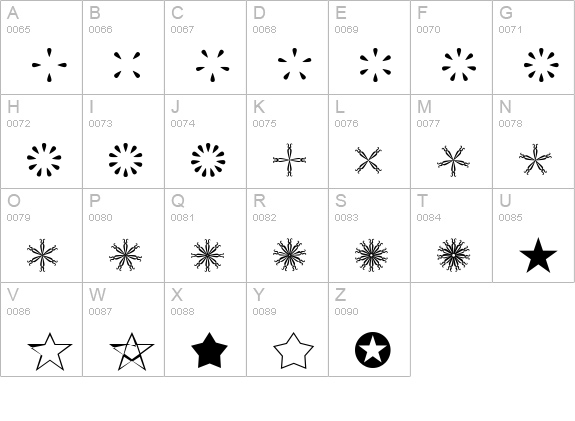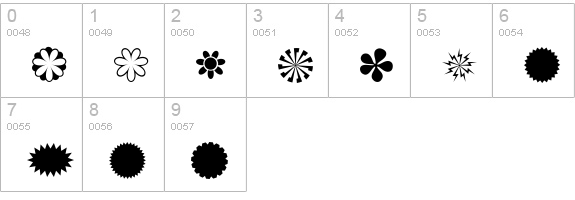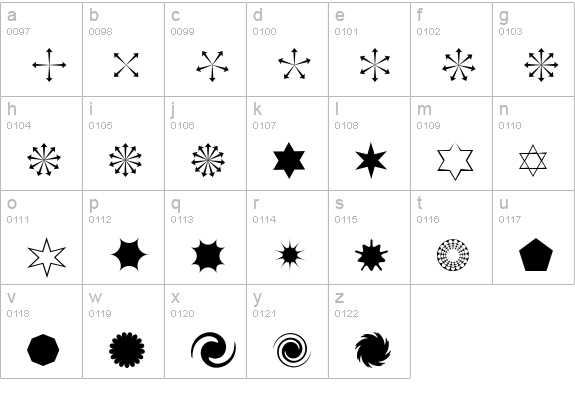
Asterisp Gamma font is a modern and stylish typeface that exudes elegance and sophistication. With its sleek lines and contemporary design, this font is perfect for adding a touch of class to any project. The smooth curves and sharp edges of Asterisp Gamma make it stand out from the crowd, making it ideal for both digital and print applications. What makes Asterisp Gamma font even more appealing is that it is completely free to use. That's right - you can download this stunning font for free at FontsMarket.com. Whether you're working on a design project, creating a logo, or crafting a social media post, Asterisp Gamma font will elevate your work to the next level. So why wait? Download Asterisp Gamma font today and make your designs shine with its sophisticated charm and modern flair.